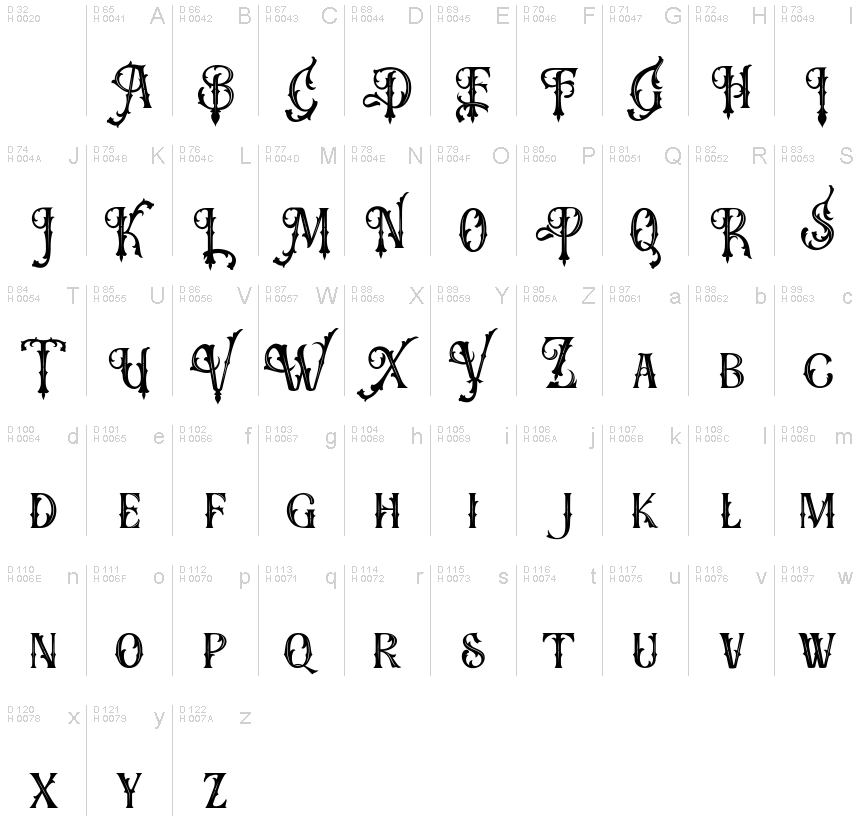
moenstrum Regular
Moenstrum font by Flawless and Co is an intricate, high-contrast display typeface with a vintage aura. This stunning free font carries beautifully exaggerated serifs and almost symmetrical elements that give it a nice Gothic feel. Some of the letters have unique ornaments which make the composition more interesting overall.
As you might expect, Moenstrum pairs very nicely with Victorian-themed projects that seek drama and antiquity. Use it for pleasant experiences in branding, packaging design, poster designs, signage typography, etc…